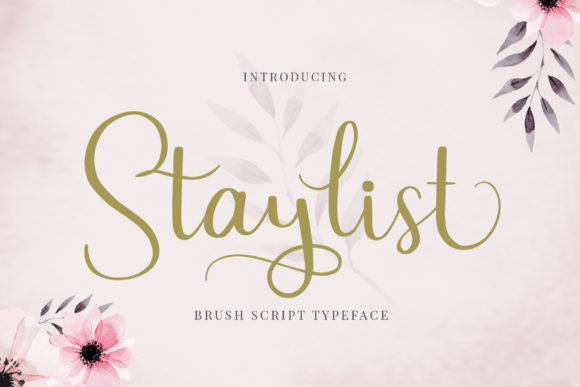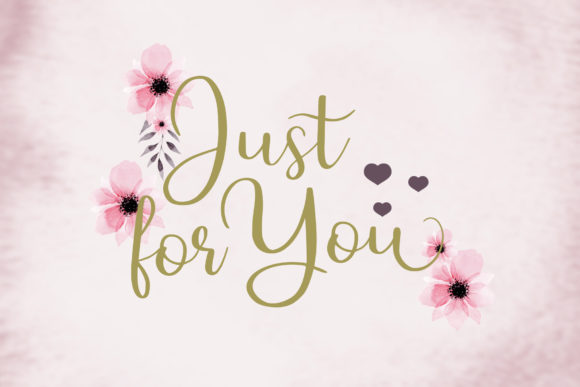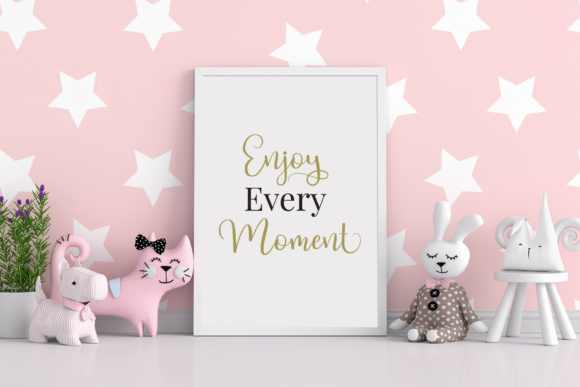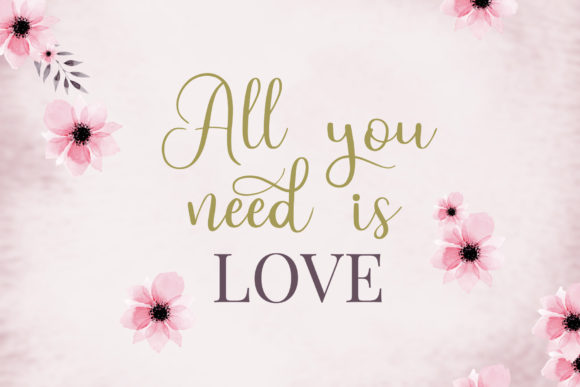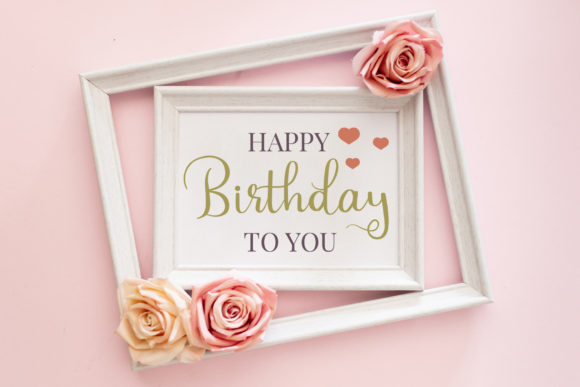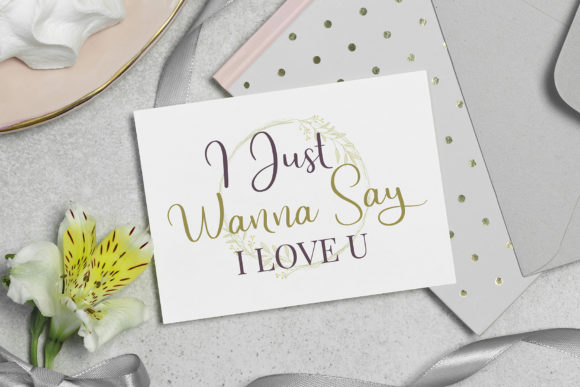
Staylist Font
About Staylist Font
Staylist script font is a beautiful, cute font designed with a lot of love. It will add a unique and charming finish to your projects!